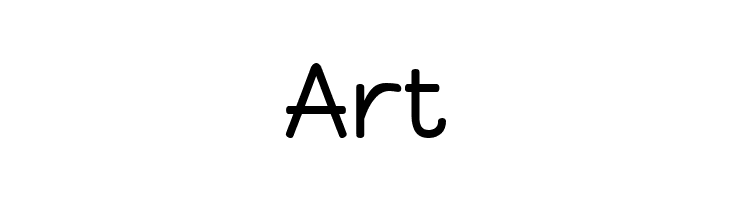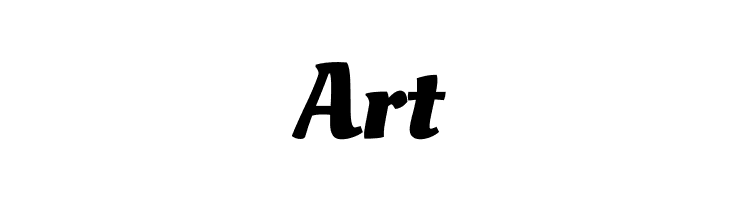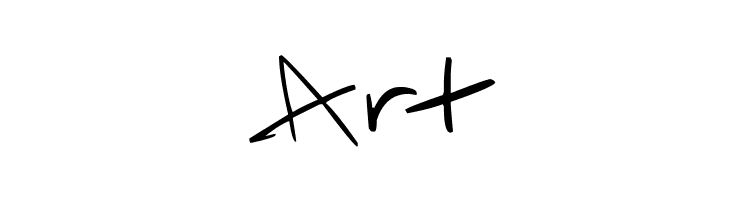
A playful and modern font with geometric shapes and smooth curves.
A playful, handwritten font with smooth, flowing lines and a casual style.
A playful, rounded font with smooth curves and a friendly appearance.
A bold, flowing script font with smooth, rounded edges and dynamic curves.
A playful, handwritten font with smooth, consistent strokes.